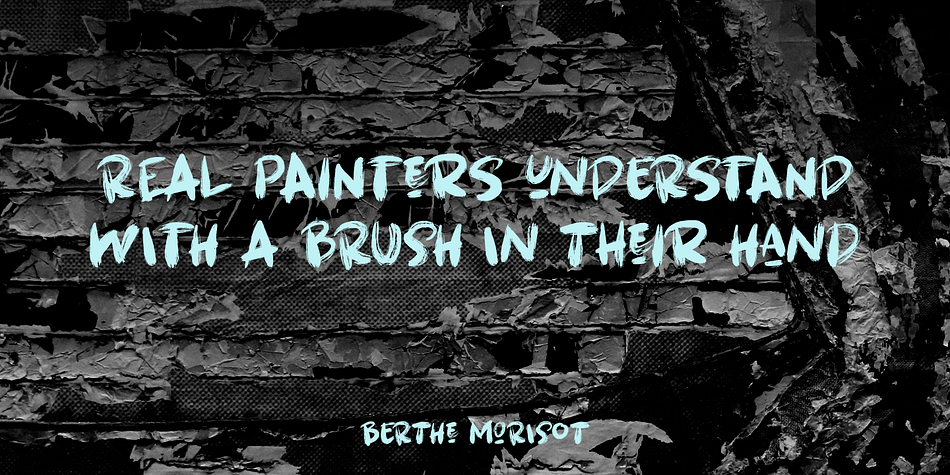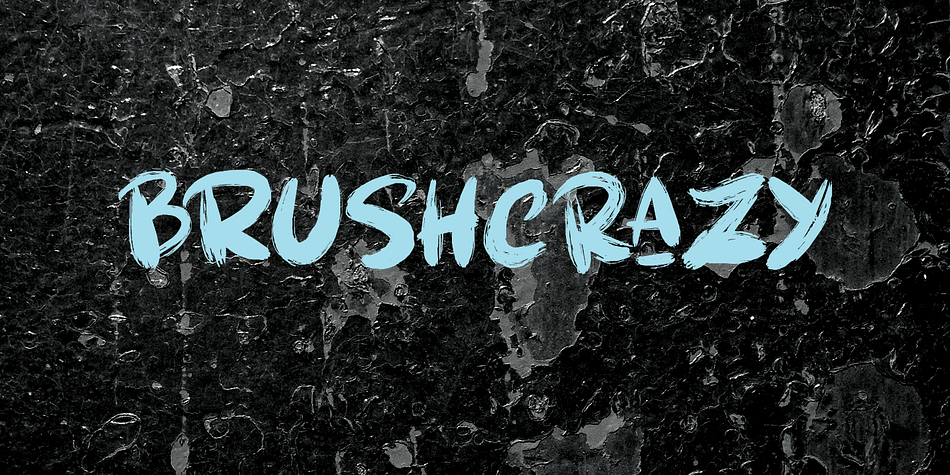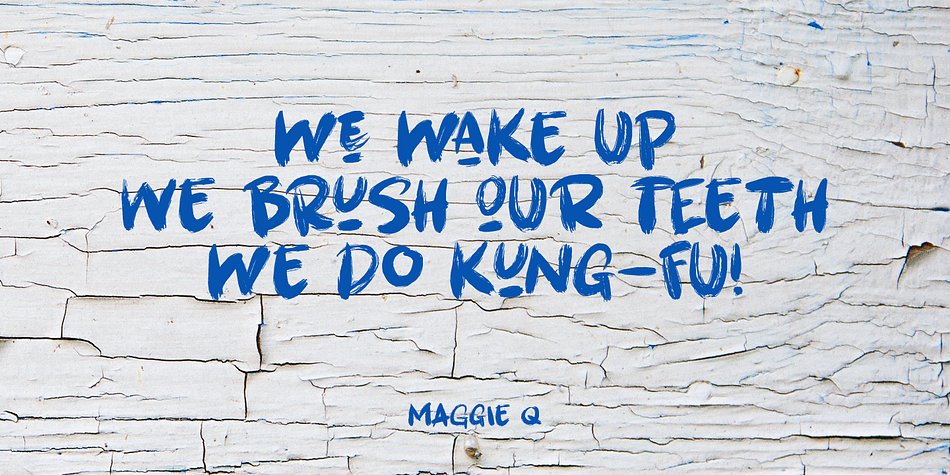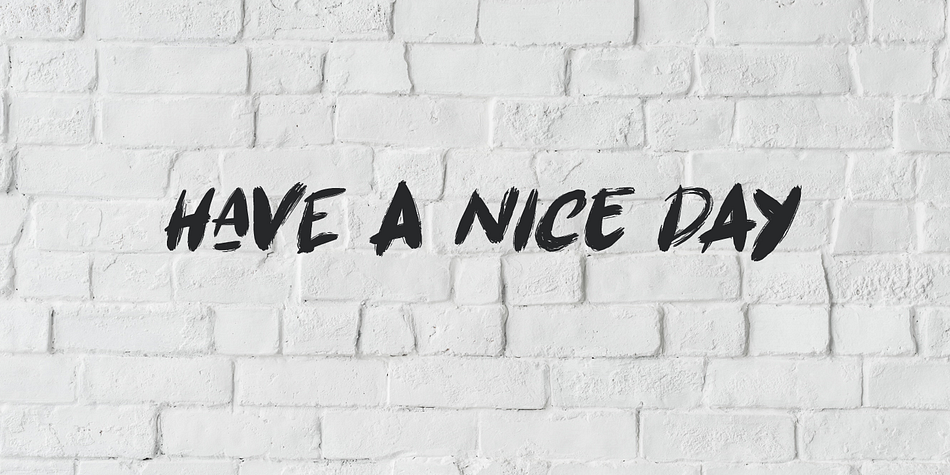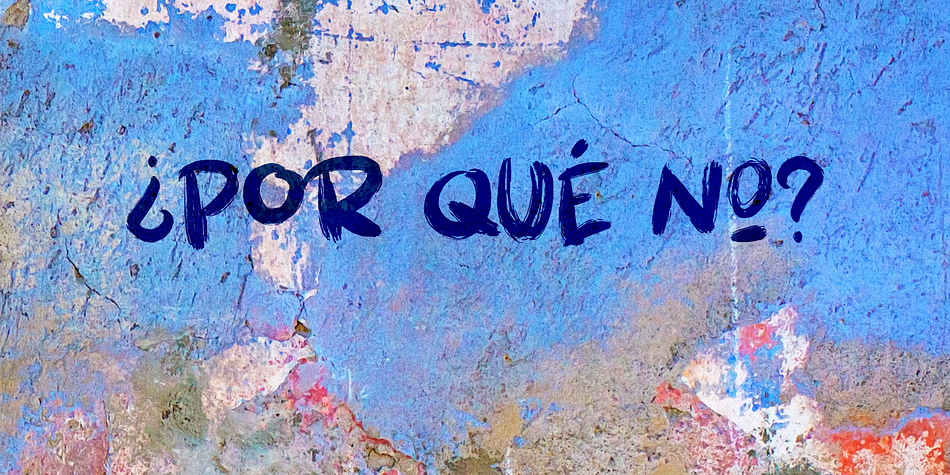
Designed by David Kerkhoff, Brushcrazy is a brush display and grunge font family. This typeface has two styles and was published by Hanoded.
Brushcrazy is a crazy brush font. Yes, you read that right! It comes with a lot of attitude, serious brush strokes, nice detail and a handful of alternate glyphs and ligatures as well!